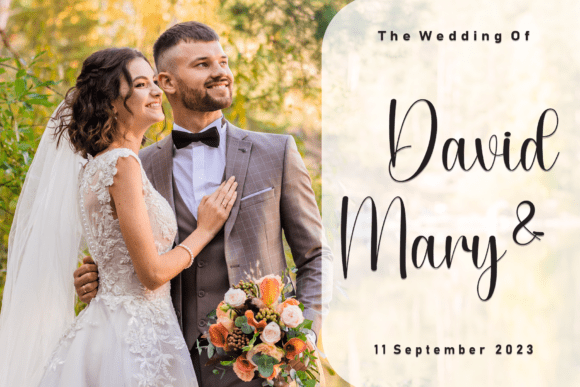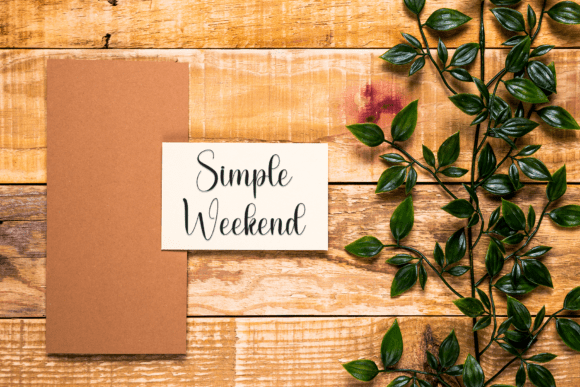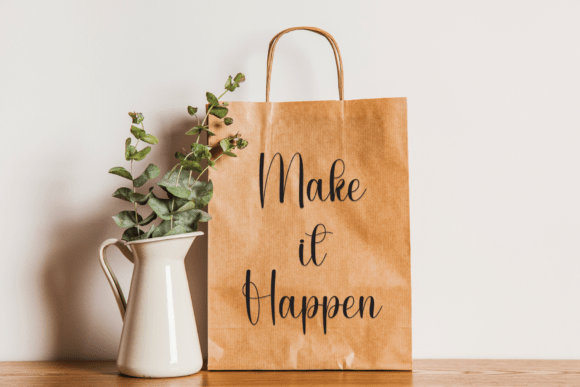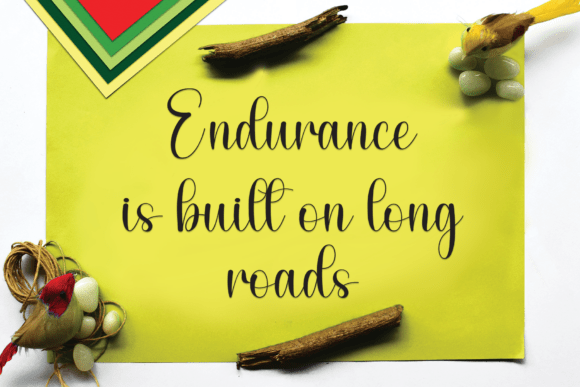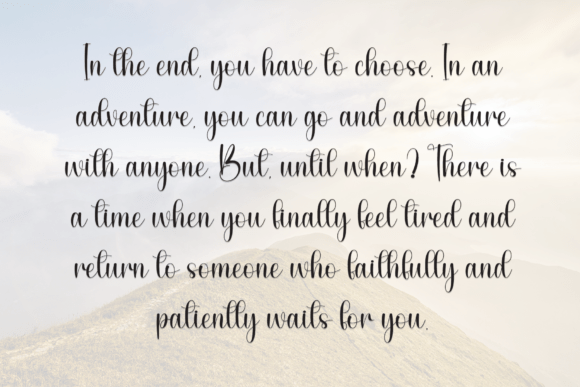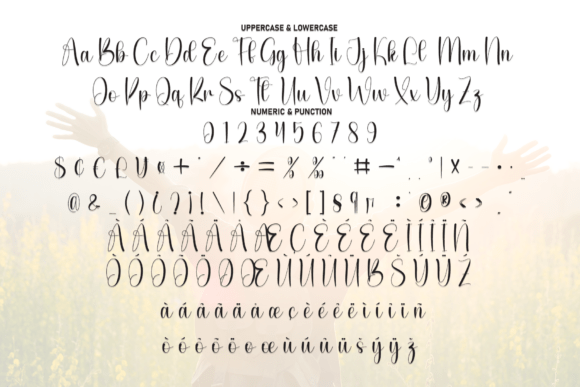
Introduction to Good Sunshine Font
Remember the moment when you finally nailed that creative project? The rush of excitement, the sense of accomplishment, and the pride in showcasing your artistic vision? That’s what happens when you use the right design resource, like the Good Sunshine Font. This stylish script font is more than just a font – it’s a key to unlocking your creative potential.
With its fluid brush strokes, dynamic curves, and expressive letterforms, the Good Sunshine Font captures the essence of hand-painted calligraphy with a modern twist. Whether you’re working on a logo, invitation, packaging, or social media graphics, this high-quality font adds a creative and sophisticated touch to any design. And the best part? It’s available for free download, making it an accessible design resource for designers of all levels.
Key Features of Good Sunshine Font
- High-quality design resource ideal for creative projects, featuring a unique and modern aesthetic.
- Perfect for use in a variety of creative projects, including logos, graphics, and typography-based designs.
Honest Review: Good Sunshine Font
I recently stumbled upon the Good Sunshine Font while searching for a design resource for a creative project, and I must say it’s a gem. The font is perfect for projects that require a touch of warmth and friendliness.
- ✨ The font has a unique and playful feel to it, making it ideal for branding and marketing materials.
- ✨ The font is highly customizable, allowing designers to adjust the opacity and transparency of the background to suit their project’s needs.
- Limitations:
- ⚠️ The Good Sunshine Font may not be suitable for projects that require a more formal or professional tone.
- ⚠️ The font may not work well with certain color combinations, so designers need to be mindful of the color palette they choose.
Overall, I’m impressed with the Good Sunshine Font. It’s a high-quality design resource that’s perfect for designers who want to add a touch of warmth and creativity to their projects. The fact that it’s free to download is just the icing on the cake. I highly recommend it for any creative project that requires a unique and playful font.
The Good Sunshine Font is a versatile design resource that can elevate your creative project with its high quality and unique style. This guide will walk you through how to use the Good Sunshine Font in various applications.
To get the most out of the Good Sunshine Font, experiment with different font sizes, colors, and styles to find the perfect combination for your design. You can also use the font in conjunction with other design elements, such as images and shapes, to create a visually appealing design.
Common Use Cases for Good Sunshine Font
The Good Sunshine Font is ideal for use in creative projects such as brochures, flyers, and posters. It’s also great for use in digital projects, such as social media graphics and website headers. With its high quality and unique style, the Good Sunshine Font is a valuable addition to any design resource library.
Yes, the Good Sunshine Font is designed to be versatile and can be used in combination with other fonts to create a unique and visually appealing design. You can experiment with different font combinations to find the perfect match for your creative project.